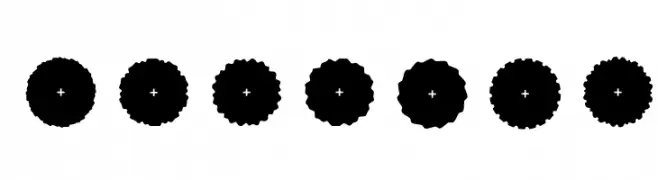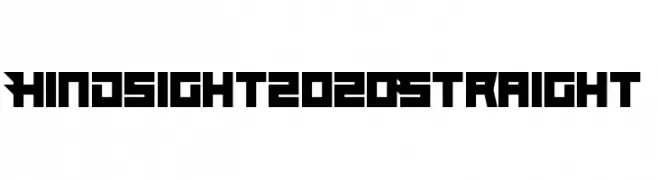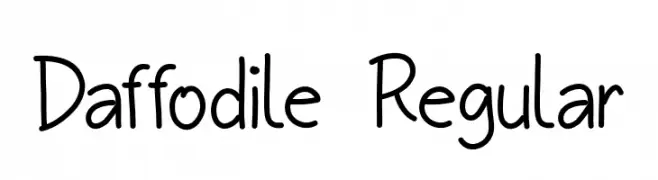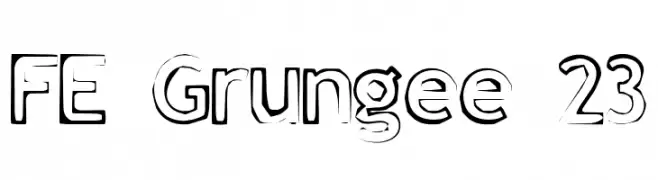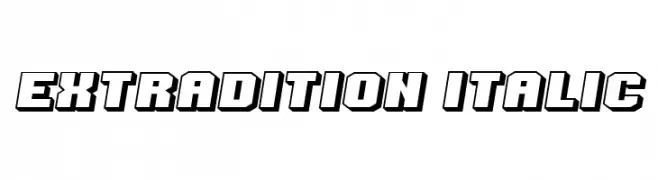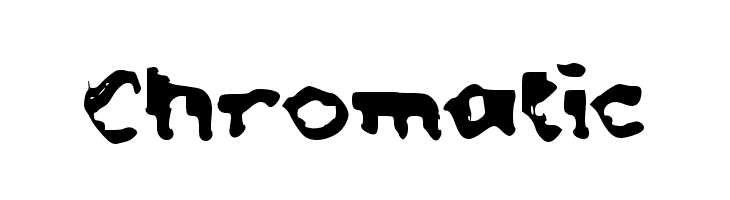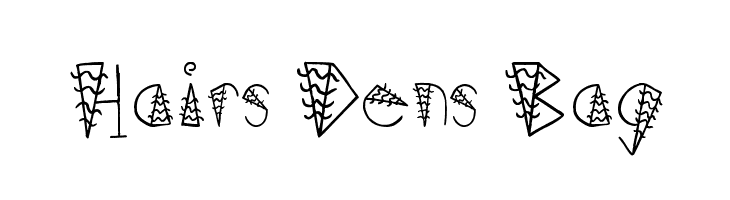
A bold, decorative font with characters in circular saw-like shapes.
A bold, geometric font with sharp angles and a futuristic style.
A decorative font with Irish-themed symbols like shamrocks and leprechauns.
A playful, handwritten font with smooth curves and a casual style.
A playful, hand-drawn font with a mix of solid and striped patterns.
A bold, distressed font with a grunge aesthetic and textured appearance.
A dyslexia-friendly italic font with unique slants and varying thickness for enhanced readability.
A playful, handwritten font with a casual and friendly appearance.
A bold, blocky font with strong geometric shapes and minimal contrast.
A bold, three-dimensional font with an italic slant and shadow effect.